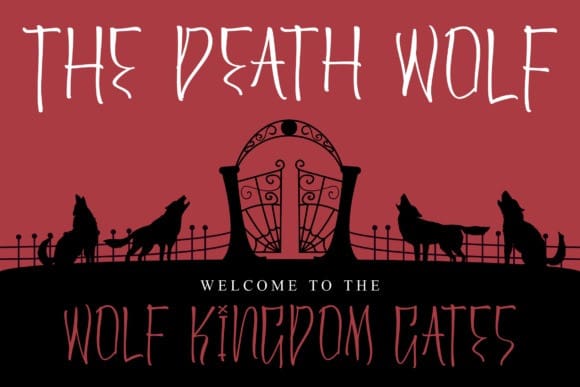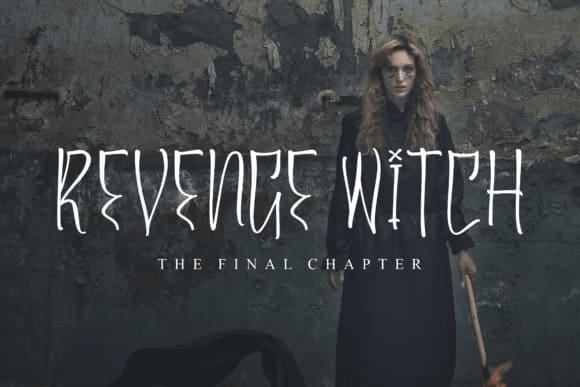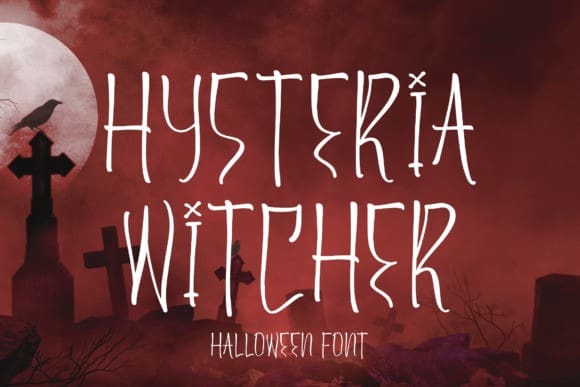
Hysteria Witcher Font
Hysteria Witcher Font  – Halloween Font , from Perspectype Studio, suitable for any projects such as: logos, branding projects, homeware designs, product packaging, mugs, quotes, posters, shopping bags, t-shirts, book covers, name card, invitation cards, greeting cards, label, photography, watermark, special events, and all your other lovely projects that need a beautiful script taste.